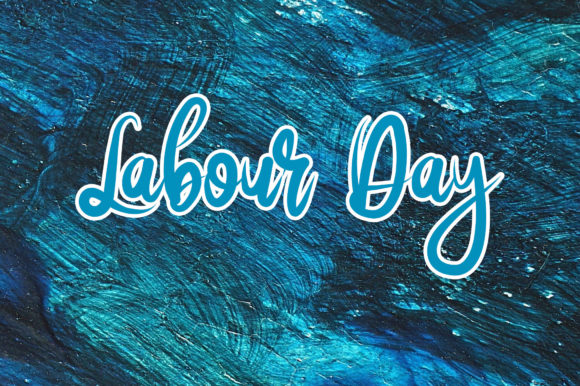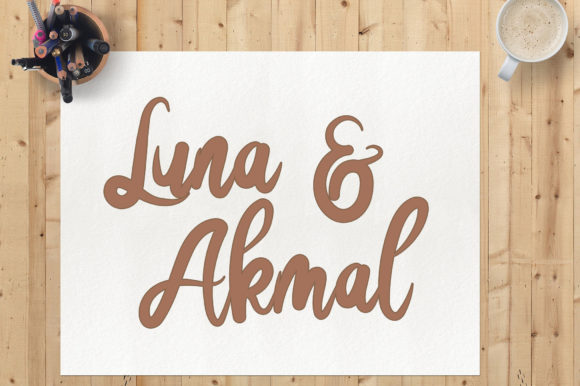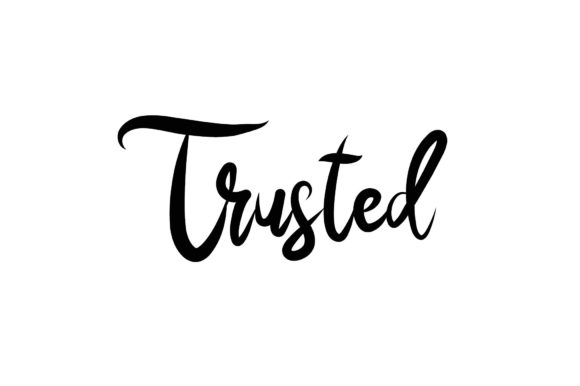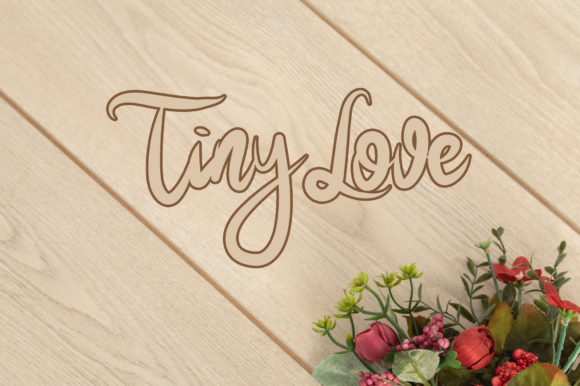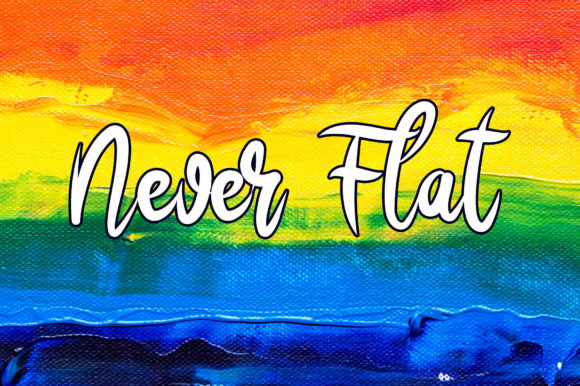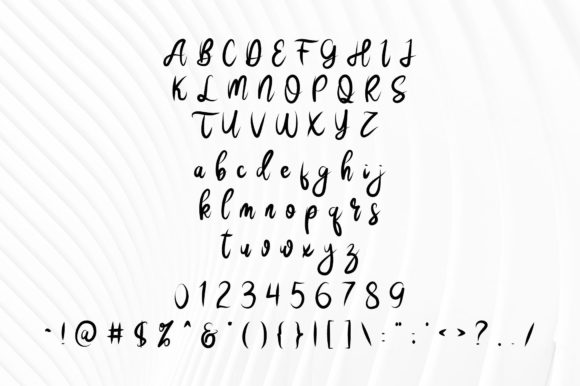
Introducing Flower Bee Font: The Whimsical Script Font You Need
Are you a designer or crafter looking for a unique and playful font to elevate your creations? Look no further than Flower Bee Font, a whimsical script font with a relaxed theme that’s sure to become a staple in your font library. In this article, we’ll dive into the features and benefits of Flower Bee Font, and explore how it can add a touch of magic to your designs.
A Lovely Style for Any Project
Flower Bee Font boasts a lovely style that’s perfect for a wide range of projects. Whether you’re designing a wedding invitation, a craft tutorial, or a social media graphic, this font is sure to add a touch of whimsy and charm. The relaxed theme of Flower Bee Font makes it ideal for designs that require a friendly and approachable tone, while the script style adds a level of sophistication and elegance.
What Makes Flower Bee Font So Special?
So, what sets Flower Bee Font apart from other fonts on the market? Here are just a few features that make it an incredible asset to your font library:
- Unique and Playful Style: Flower Bee Font features a one-of-a-kind design that’s sure to grab attention. The playful style is perfect for designs that require a bit of personality and flair.
- Versatile and Adaptable: Whether you’re designing a digital product or a physical craft, Flower Bee Font is versatile enough to adapt to any project or theme.
- Easy to Read: Despite its playful style, Flower Bee Font is surprisingly easy to read, making it perfect for designs that require a clear and concise message.
How to Use Flower Bee Font in Your Designs
Now that we’ve covered the features and benefits of Flower Bee Font, let’s explore some ways you can use it in your designs:
Wedding and Event Design
Flower Bee Font is perfect for wedding invitations, save-the-dates, and other event-related designs. The whimsical style adds a touch of romance and playfulness to any design, while the script font adds a level of sophistication.
Crafting and DIY Projects
If you’re a crafter or DIY enthusiast, Flower Bee Font is a great addition to your design toolkit. Use it to create custom signs, labels, and other decorative elements for your projects.
Social Media and Blogging
Want to add a touch of personality to your social media graphics or blog posts? Flower Bee Font is a great choice. Use it to create eye-catching headlines, quotes, and other graphics that will help you stand out online.
Tips for Getting the Most Out of Flower Bee Font
Here are a few tips for getting the most out of Flower Bee Font:
- Pair it with Other Fonts: Flower Bee Font pairs well with a variety of other fonts. Try pairing it with a bold sans-serif font for a striking contrast.
- Use it to Add Emphasis: Use Flower Bee Font to add emphasis to certain words or phrases in your design. This can help draw attention to important information.
| Font Name | Flower Bee Font |
| Author | Lambemu Yoyo |
In conclusion, Flower Bee Font is a whimsical script font that’s sure to become a staple in your font library. With its unique and playful style, versatile and adaptable design, and easy-to-read format, it’s the perfect choice for a wide range of projects. Whether you’re a designer, crafter, or DIY enthusiast, Flower Bee Font is an incredible asset that will help you elevate your creations and add a touch of magic to your designs.